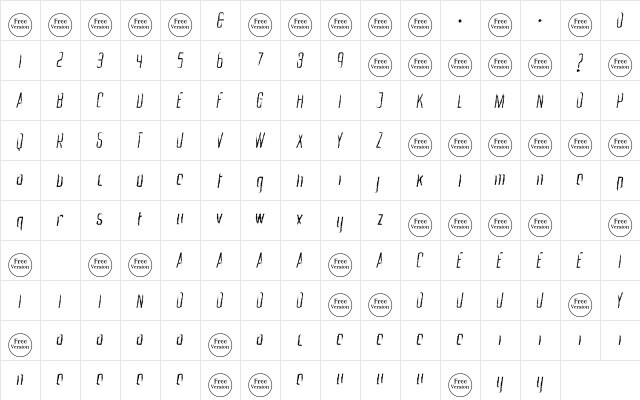
Mystic Forest Free Trial Regular
Design Context for Mystic Forest Free Trial
Mystic Forest Free Trial is a composed and adaptable typeface that performs quietly and consistently across a wide range of design contexts.
Pro Tip: Use Mystic Forest Free Trial in both headline and body roles to test its range before committing to a single application.